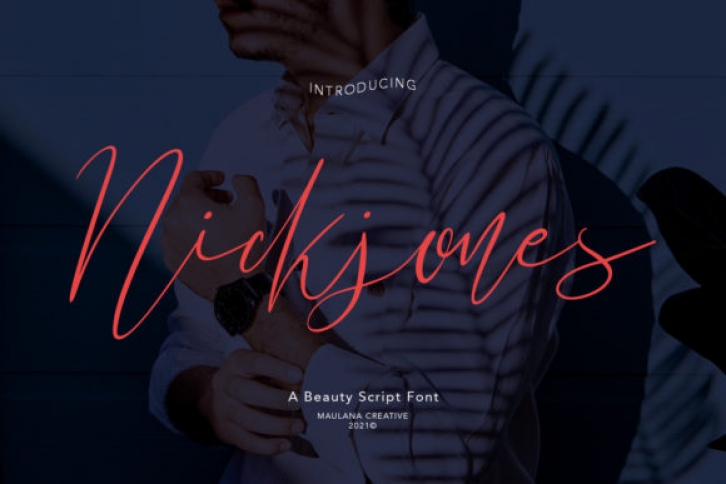
Nickjones is a ravishing script font, featuring dancing and light characters. It will add a luxury spark to any design project that you wish to create! Nickjones was particularly crafted for those who need a beautiful and refreshing look to their designs.